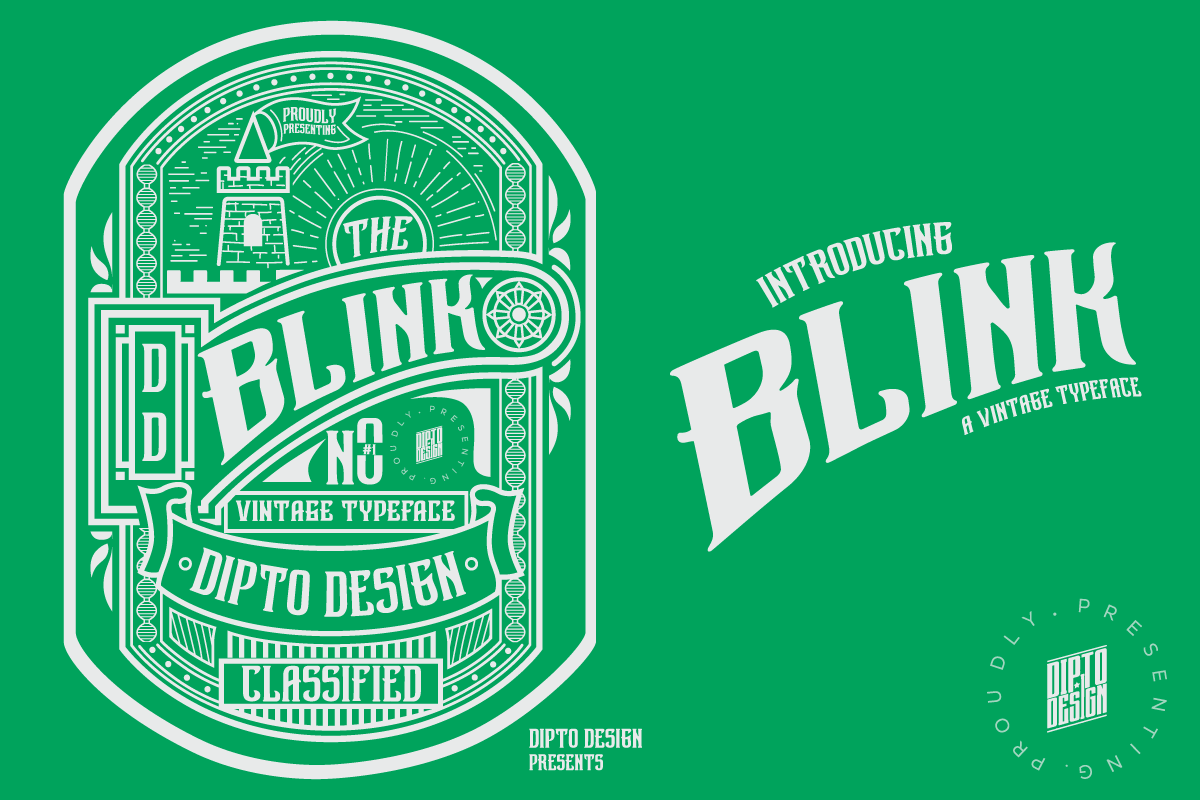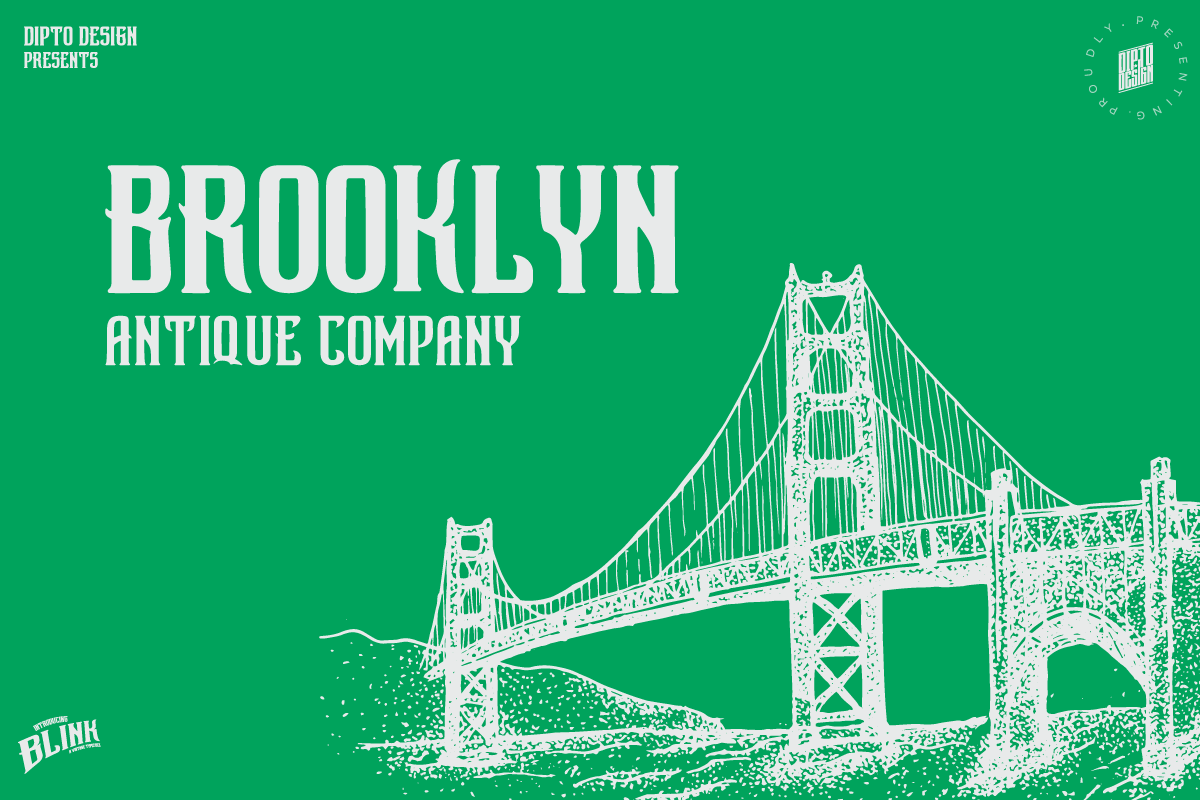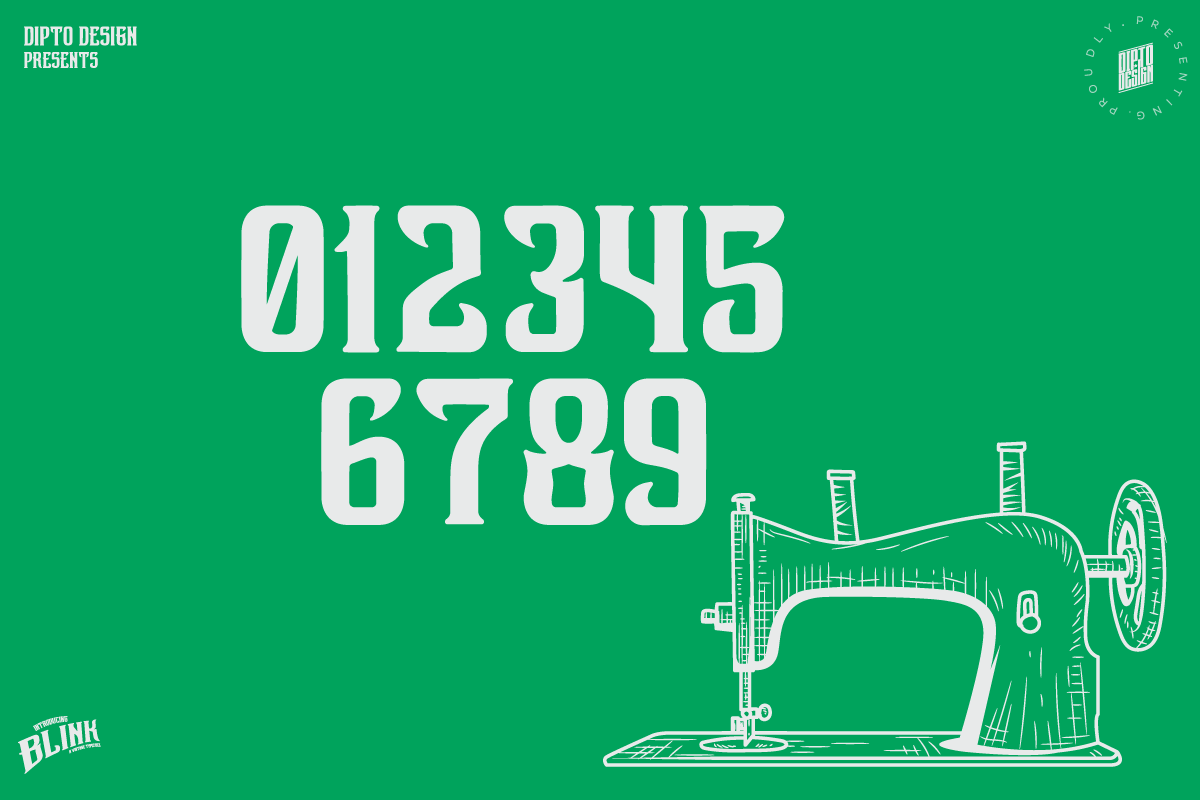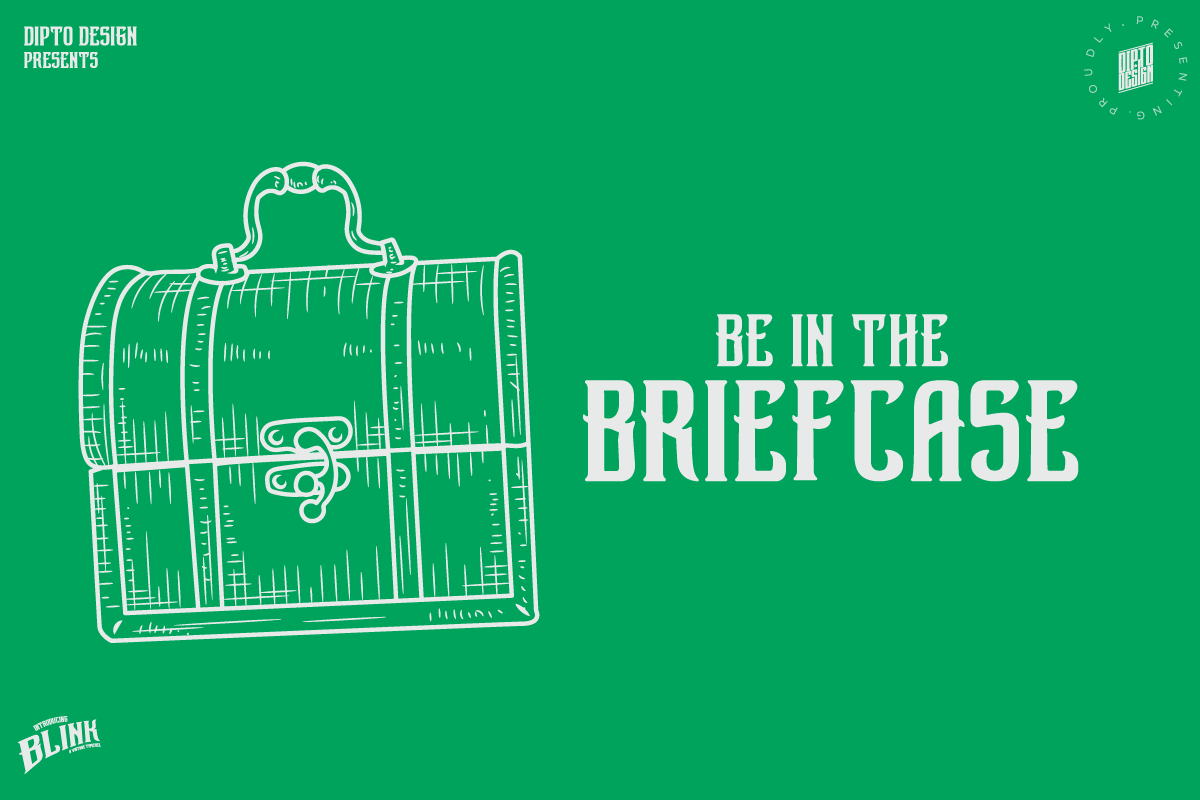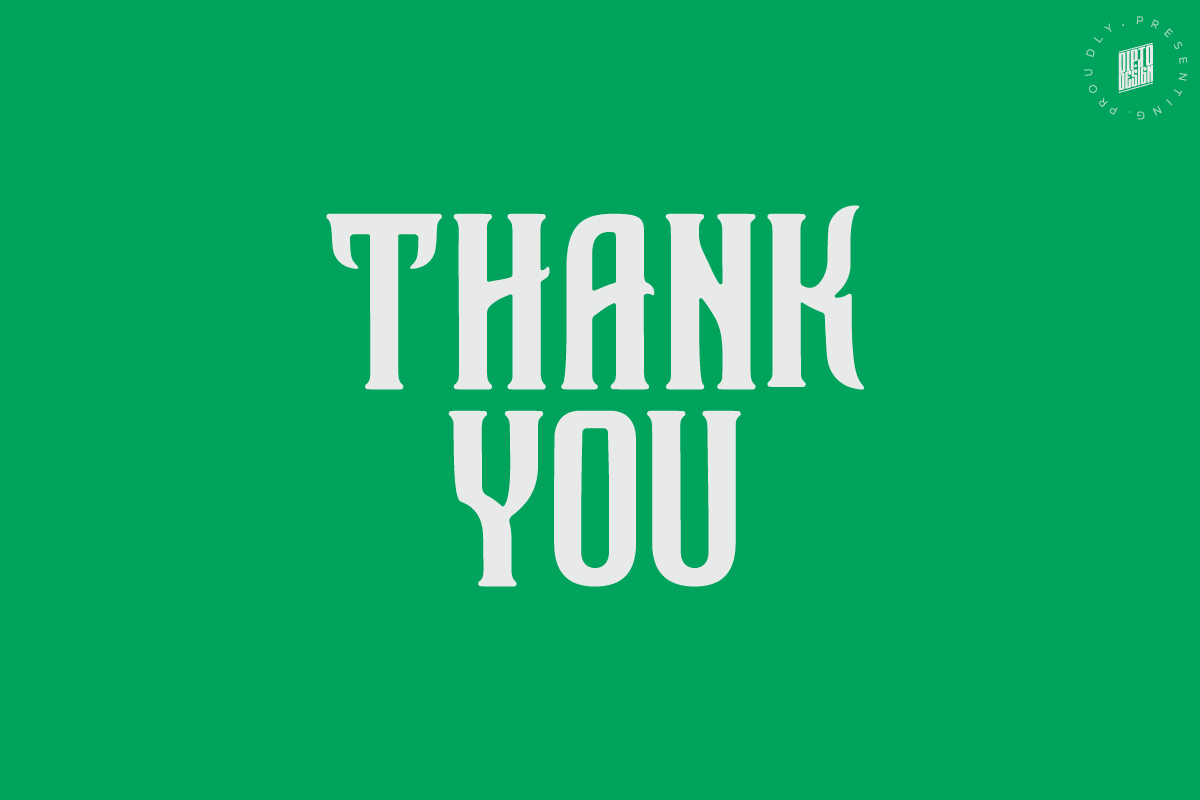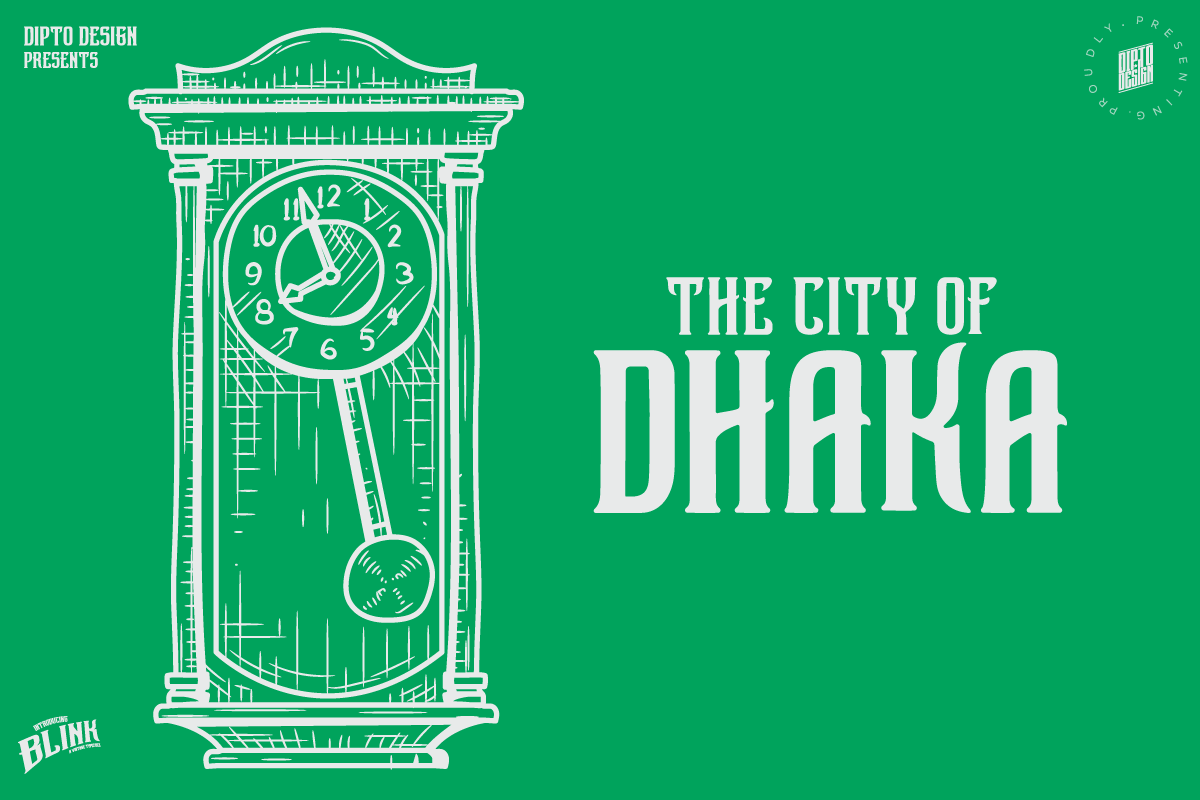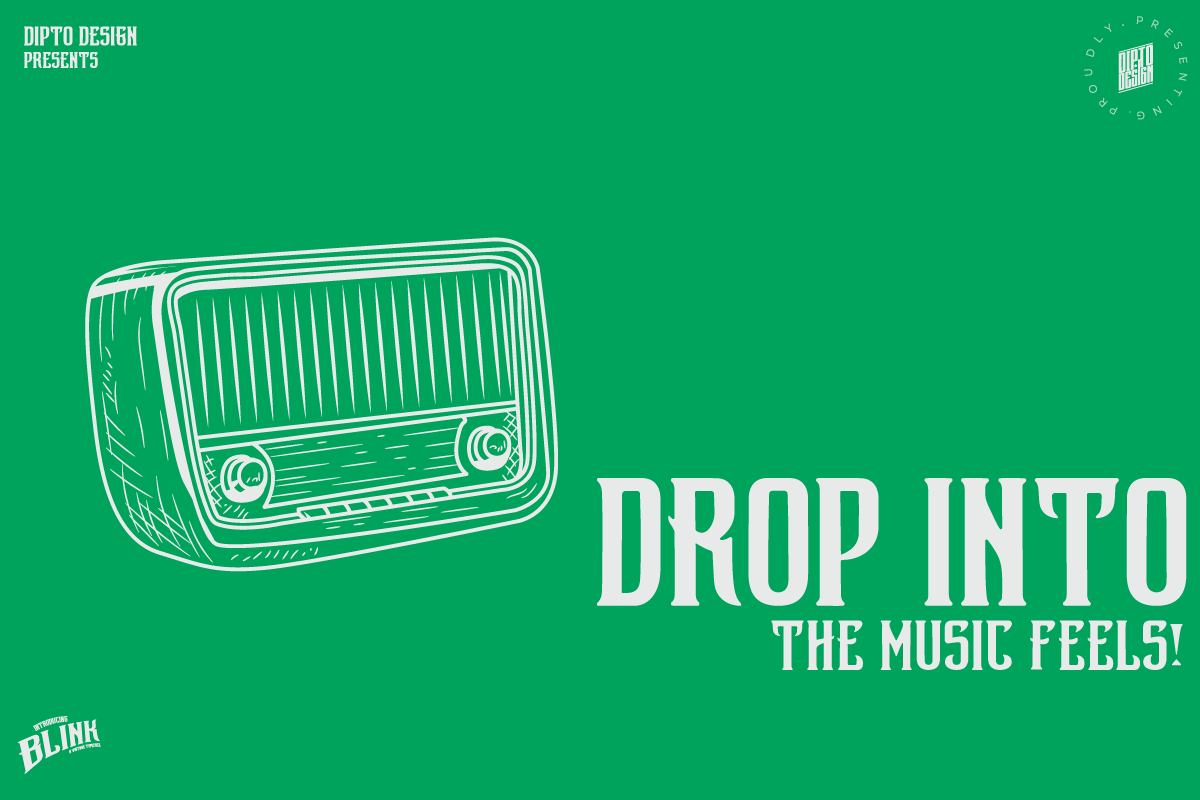
Blink - A Vintage Typeface
Introducing "Blink" — a captivating vintage typeface that echoes the elegance of a bygone era! This timeless font is meticulously crafted to infuse your designs with a touch of nostalgia and sophistication. With each character, "Blink" tells a story of timeless charm, making it perfect for logos, invitations, and branding projects. The unique blend of classic and contemporary elements ensures versatility in your creative endeavors. Elevate your design game with "Blink" — where vintage meets modernity.